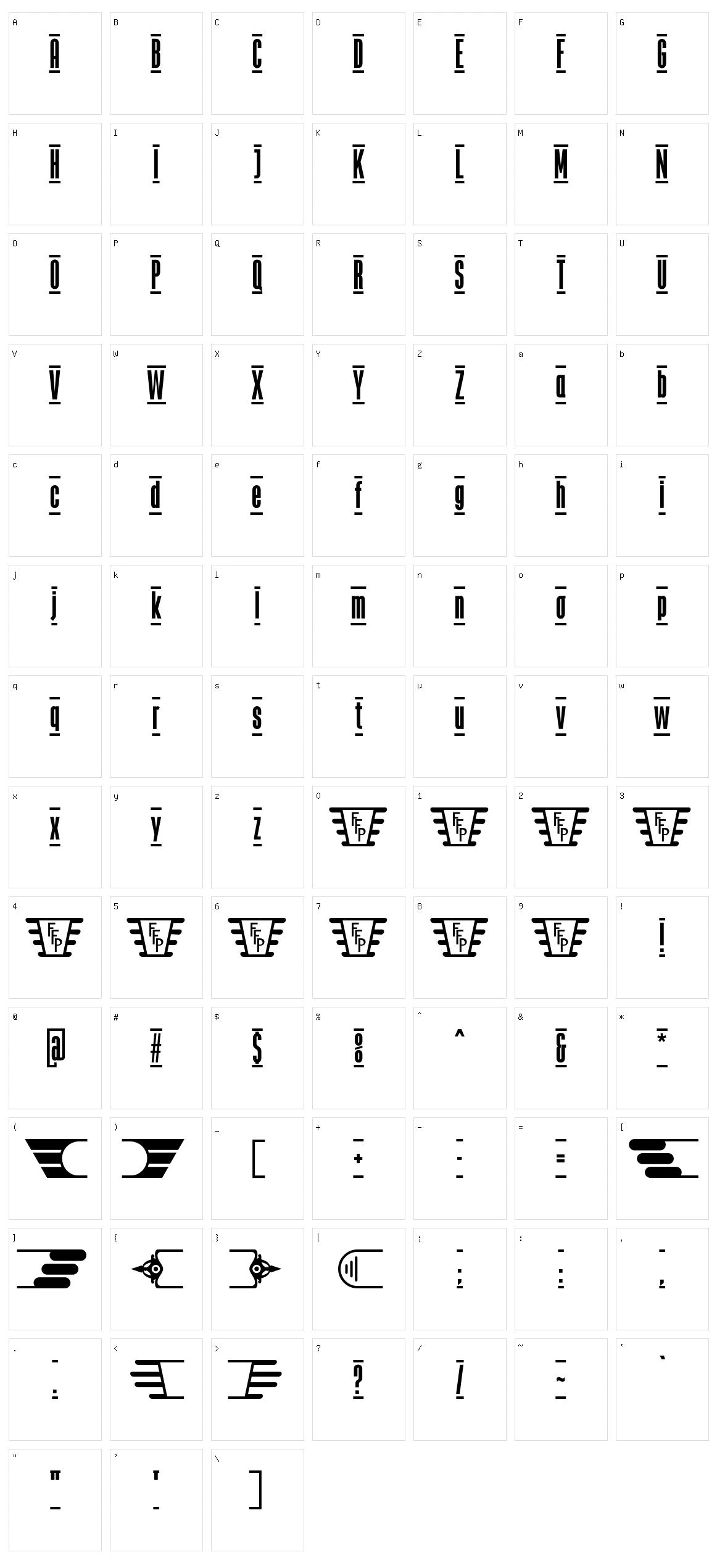
The Juke Box
Designed by: deFharo
Category: Retro
The Juke Box dispone de varios cierres de caja, use las teclas siguientes:
• Teclas: ()
• Teclas: []
• Teclas: {}
• Teclas: <>
• Teclas: |¬
• Teclas: _\
Aplique Ligaduras discrecionales en QuarkXpress, inDesign, Photoshop e Illustrator para obtener el segundo grupo de cierres ornamentados.
The Juke Box, has several closures box, use the following keys:
• Keys: ()
• Keys: []
• Keys: {}
• Keys: <>
• Keys: |¬
• Keys: _\
Apply discretionary ligatures in QuarkXpress, InDesign, Photoshop and Illustrator for the second set of ornate closures.